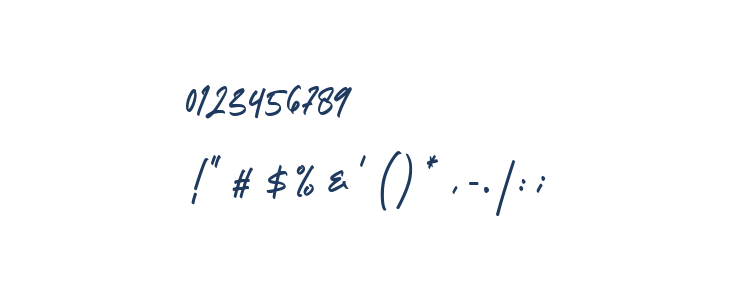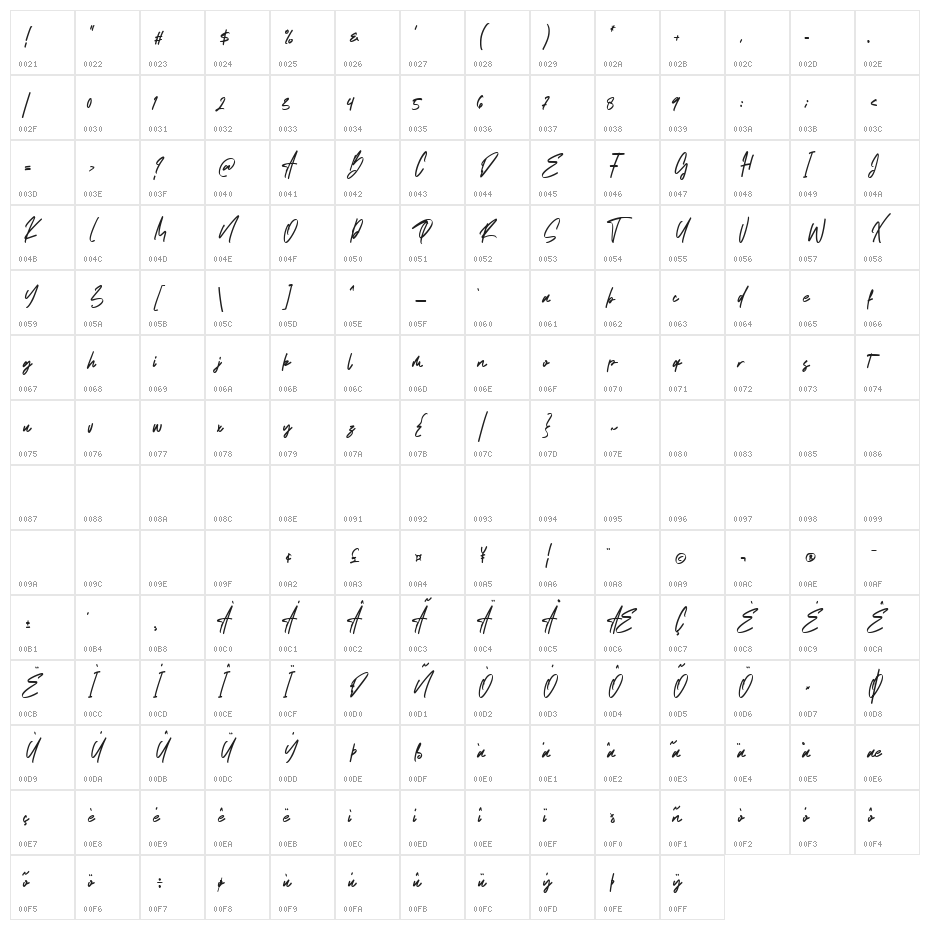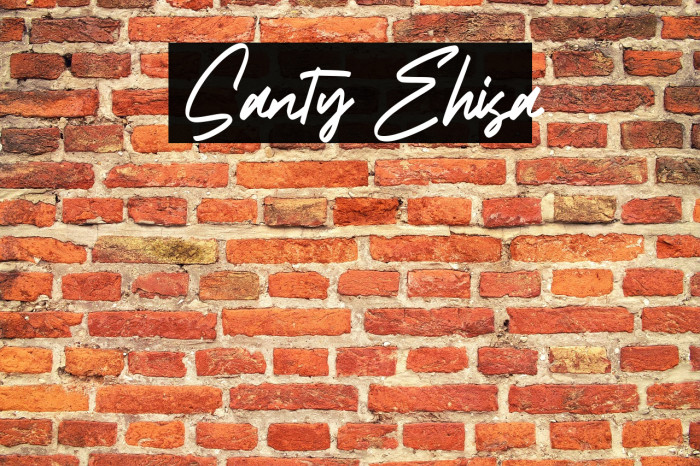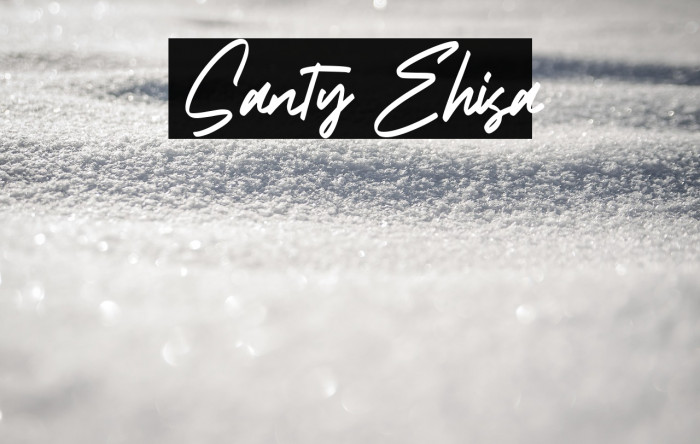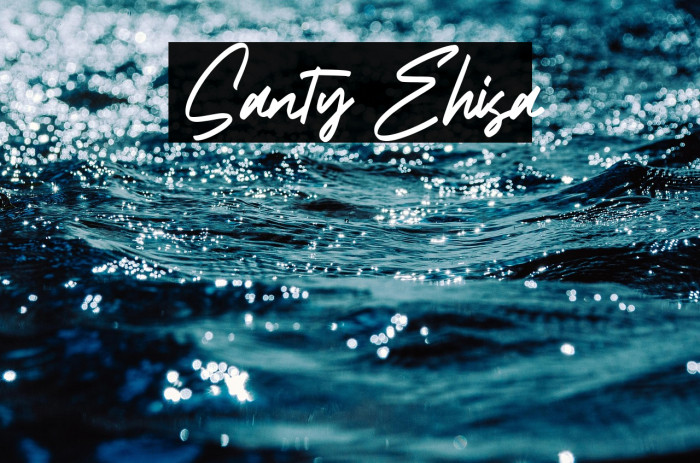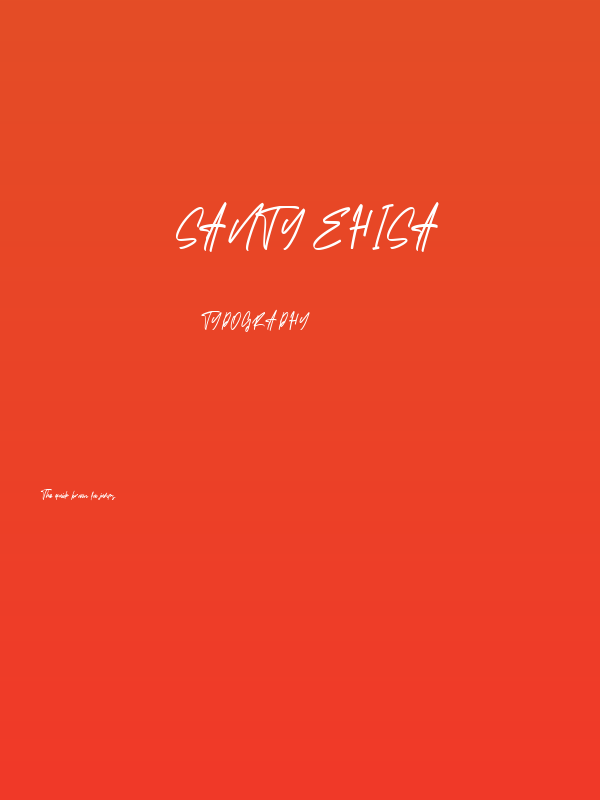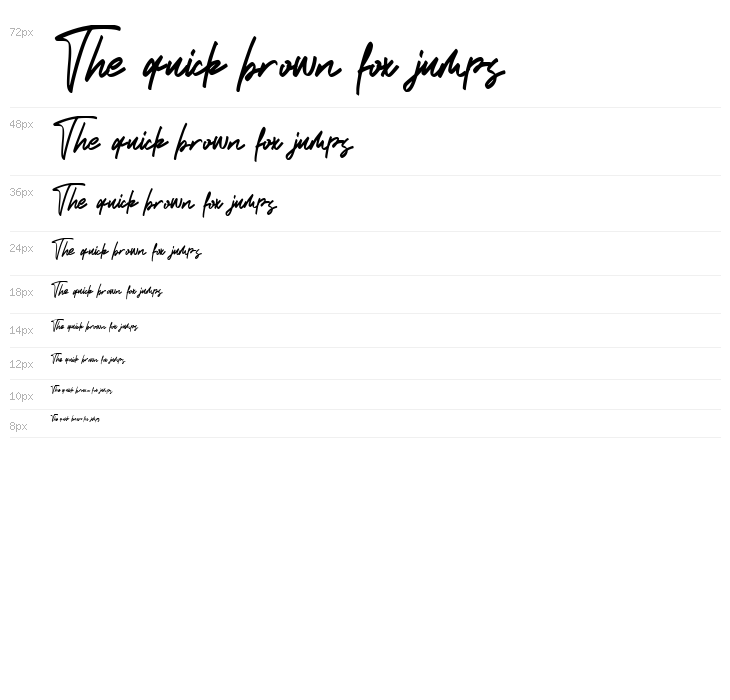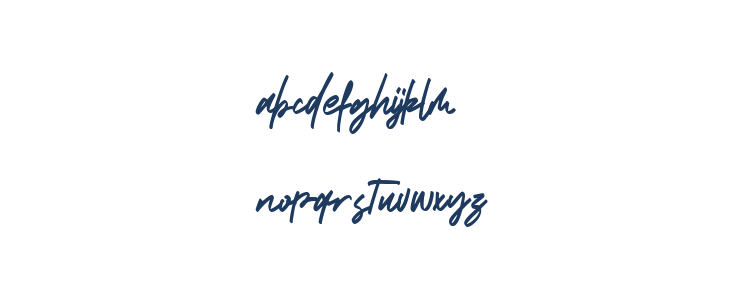
Santy Ehisa Font
Santy Ehisa Description
This font exhibits a dynamic and expressive handwritten style, characterized by its fluid and cursive letterforms. The uppercase letters are bold and slightly slanted, giving a sense of movement and energy. The lowercase letters maintain a consistent flow, with some letters featuring unique loops and curves that add to the font's personality. The numerals are well-integrated into the style, maintaining the same handwritten aesthetic. Special characters are creatively designed, complementing the overall look. This font's informal and artistic nature makes it ideal for projects that require a personal touch.
| Use Case | Logos, Headlines, Creative projects |
| Proposed Projects | Ideal for greeting cards, invitations, personal branding, and creative projects requiring a personal touch. |